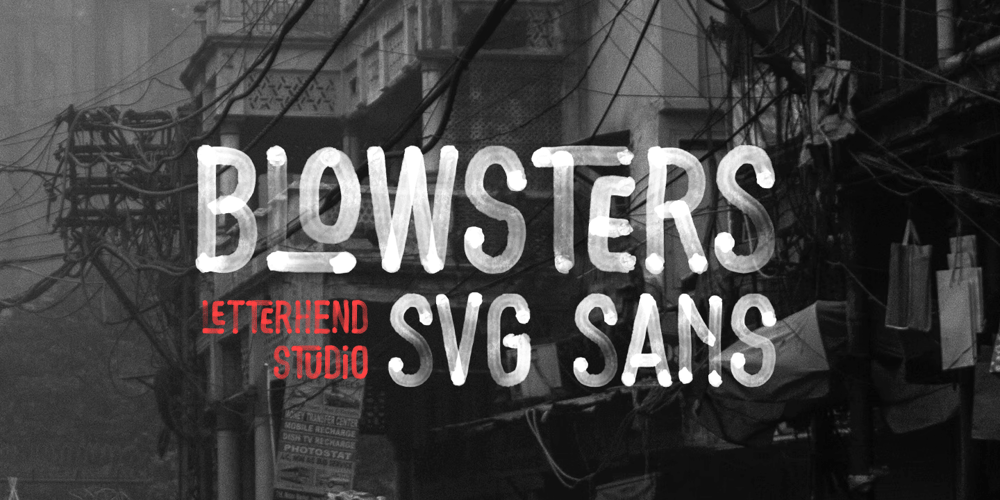
Blowsters Font Family was designed by Hendry Juanda and published by Letterhend. Blowsters contains 2 styles and family package options. Blowsters is a textured SVG Sans Serif typeface. Available in two types, solid version and transparent version. This type of font perfectly made to be applied especially in headlines which is need a standout font, and the other various formal forms such as invitations, labels, logos, magazines, books, greeting / wedding cards, packaging, fashion, make up, stationery, novels, labels or any type of advertising purpose.Features :Solid version and svg versionnumbers and punctuationmultilingualligaturesPUA encodedWe highly recommend using a program that supports OpenType features and Glyphs panels like many of Adobe apps and Corel Draw, so you can see and access all Glyph variations. How to access opentype feature : letterhend.com/tutorials/using-opentype-feature-in-any-software/Email us to letterhend@gmail.com if you need something! Happy Designing!